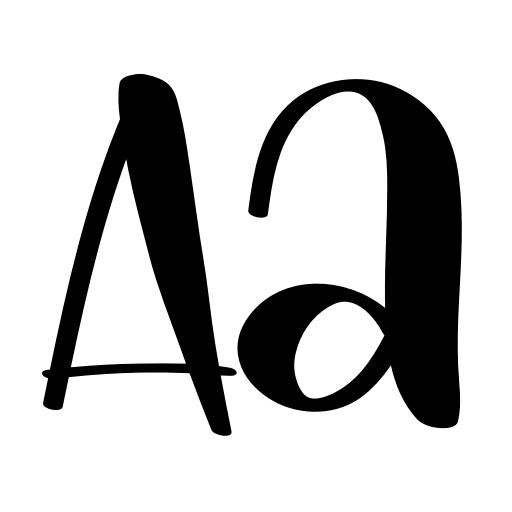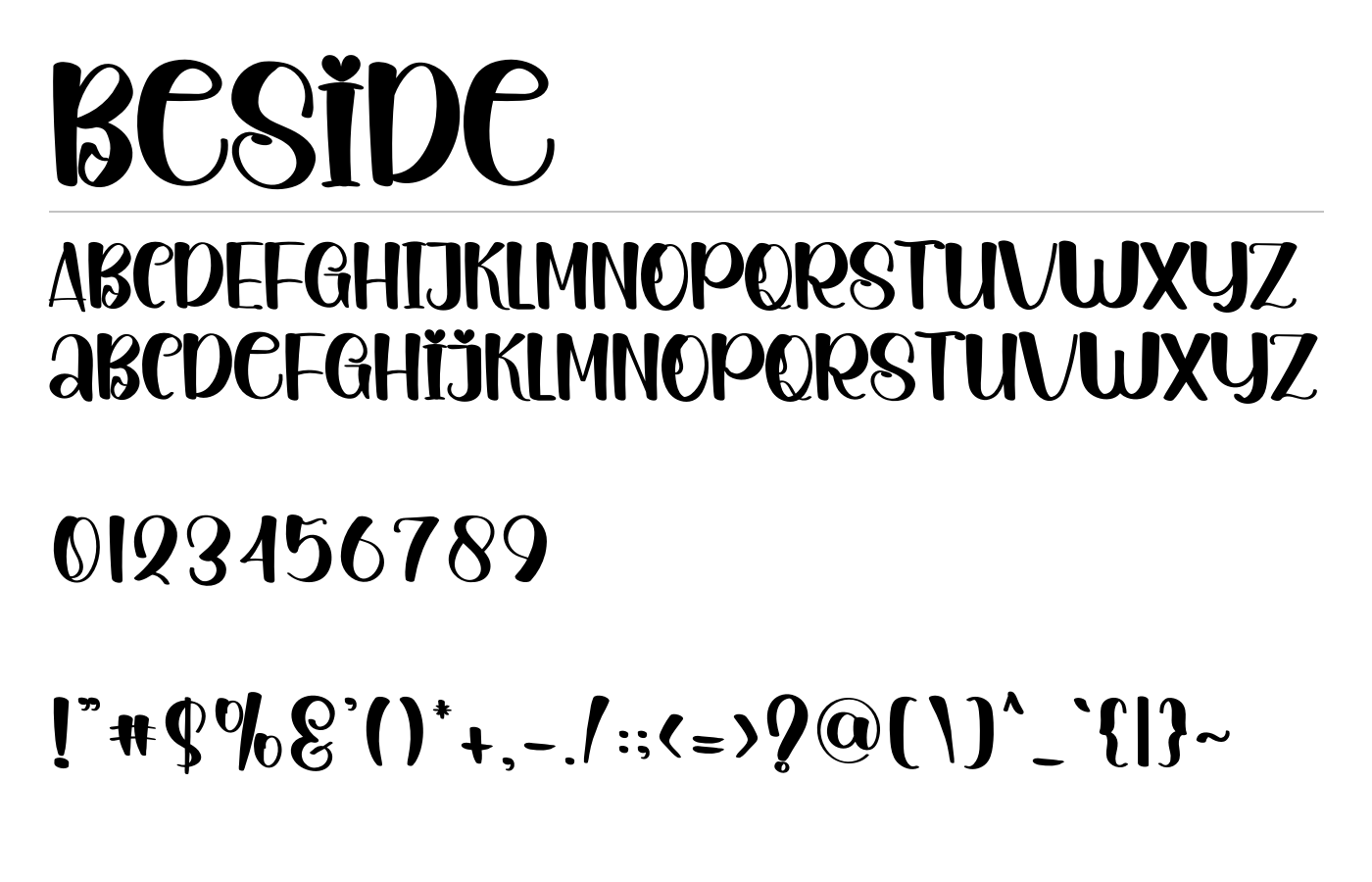
Beside Font is a playful and quirky sans serif typeface characterized by uneven, curvy strokes and whimsically shaped letters that convey a casual, hand-crafted feel. Its medium weight and tall x-height combined with unique letter details like heart-shaped dots and looped forms make it perfect for cheerful branding, children’s products, invitations, and creative headlines that seek a fun and friendly vibe. This font stands out in designs aiming for an informal, approachable look while maintaining good readability.
Beside Font